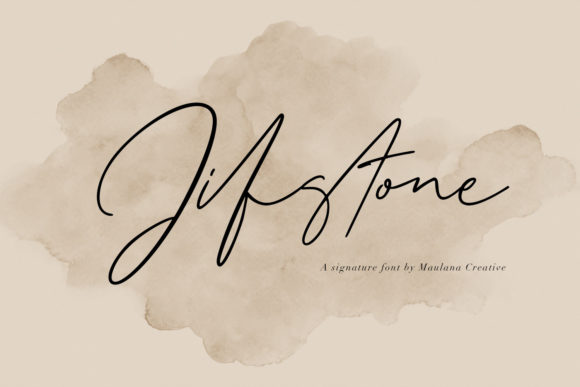
Jifstone: A Modern Script for Elegant Branding
In a visual landscape saturated with generic fonts, discovering a typeface with genuine personality is like striking gold for a designer. Enter Jifstone, a thin and fashionable script font that immediately captures attention with its classy, elegant, and modern aesthetic. Its graceful curves and refined strokes offer a sophisticated alternative to overused scripts, providing a fresh tool for projects that demand a touch of contemporary finesse.
The Anatomy of a Versatile Script
Jifstone’s design is a study in balanced contrast. The thin, flowing lines create a sense of lightness and movement, while its carefully crafted letterforms ensure legibility even at smaller sizes. This isn't a font that shouts; it whispers with confidence. Its modern appeal stems from a clean execution that avoids overly ornate flourishes, making it suitable for both digital and print applications where clarity is paramount. This blend of style and function is crucial for effective visual communication in today's fast-paced environment.
Practical Applications Across Creative Projects
The true value of a typeface like Jifstone lies in its adaptability. Its elegant demeanor makes it a powerful asset across numerous design disciplines, seamlessly integrating into a professional design workflow.
- Branding & Logo Design: For brands targeting a sophisticated audience—think boutique hotels, high-end cosmetics, or artisanal goods—Jifstone can form the core of a memorable brand identity. Its script style adds a personal, human touch to logos and wordmarks.
- Marketing & Social Media: In the realm of digital marketing, first impressions are visual. Jifstone excels in creating eye-catching social media graphics, elegant header images, and promotional materials that stand out in a crowded feed. Its modern look aligns perfectly with current design trends favoring minimalist elegance.
- Print & Packaging Design: The font's delicate form is ideal for packaging design, particularly for luxury products, cosmetics, or gourmet foods. It also elevates print design elements like wedding invitations, business stationery, and editorial layouts, adding a layer of premium quality.
- Digital Interfaces & Presentations: While primarily a display font, Jifstone can be used strategically in UI design for hero text, buttons, or accent copy to inject personality. It also transforms mundane presentations into professional presentations that engage and impress stakeholders.
Integrating Jifstone Into Your Design System
Adopting a new creative asset requires thoughtful consideration. To maximize Jifstone's impact, consider these practical tips for your graphic design process:
- Establish Visual Hierarchy: Use Jifstone for headlines, pull quotes, or key branding phrases. Pair it with a clean, highly legible sans-serif or serif body font to create a clear and effective visual hierarchy.
- Mind the Context: Always consider your audience and medium. Its elegant style is perfect for lifestyle, fashion, and luxury sectors but may feel out of place for a children's toy brand or a technical manual.
- Test for Readability: Before finalizing, test the font at various sizes across its intended applications—on a mobile screen, a printed brochure, or a billboard mockup. Ensure it maintains its charm without sacrificing clarity.
- Complement Your Color Palette: Jifstone's thin lines work beautifully with a restrained color palette. Think monochromatic schemes, soft pastels, or bold contrasts where the font's delicacy can act as a counterpoint.
Ultimately, the choice of typography is a fundamental decision in shaping a project's voice and user experience. A resource like Jifstone provides more than just letters; it offers a specific mood and aesthetic that can unify a creative project. By thoughtfully selecting and deploying such assets, designers and creators can elevate their work, ensuring that every visual element—from the logo to the last line of copy—communicates with clarity, elegance, and purpose. In the pursuit of quality visual design, the right font is an indispensable ally.